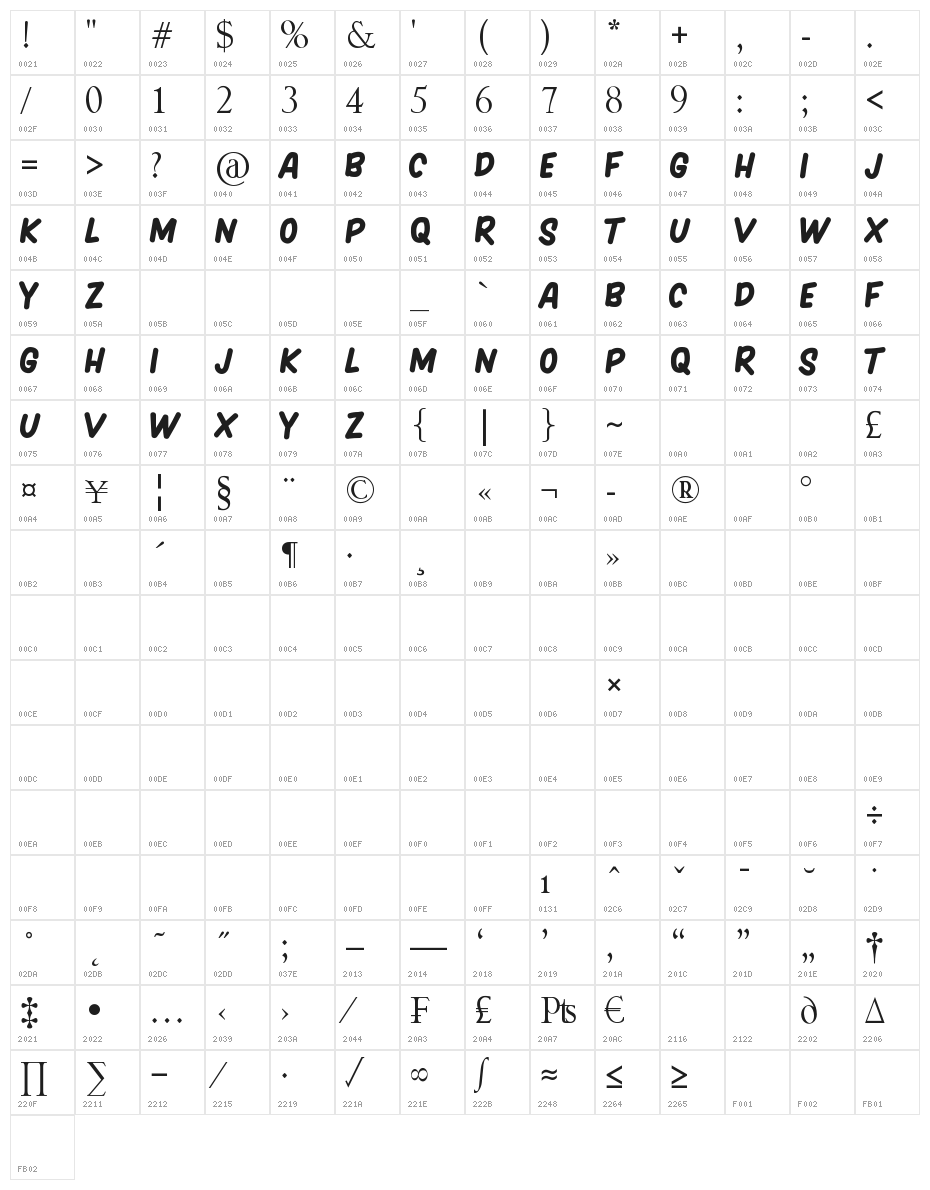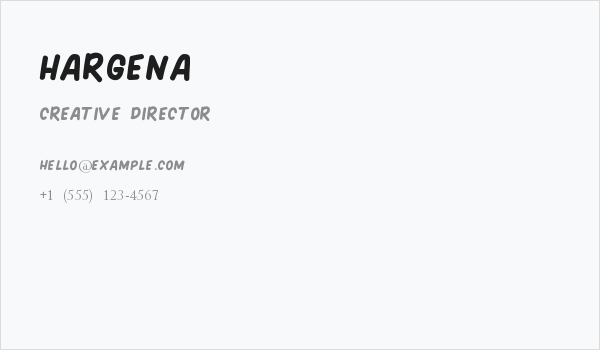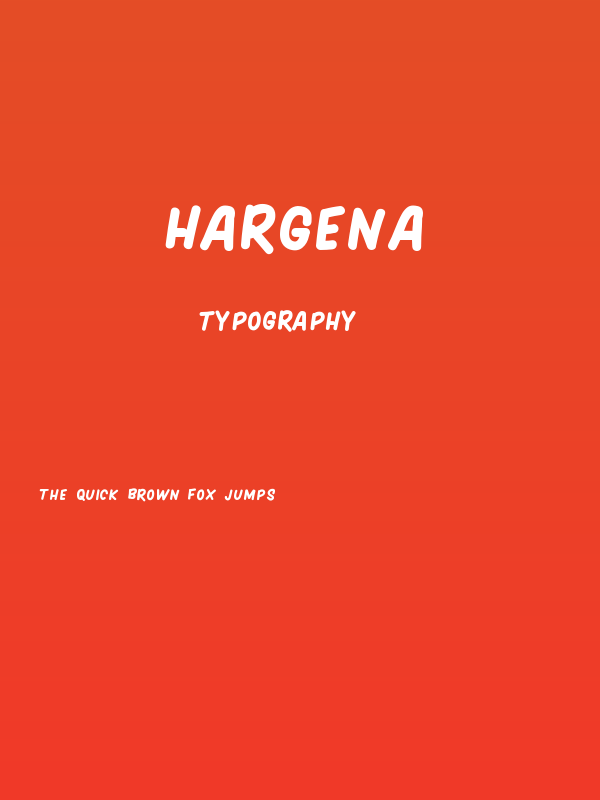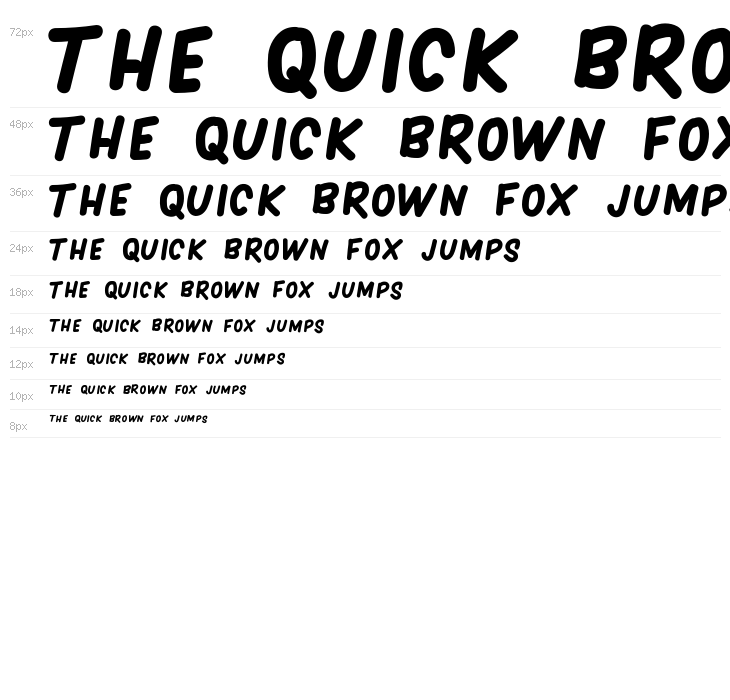
HARGENA Font
HARGENA Description
This font features a playful and energetic style with a handwritten appearance. The letters are bold and slightly slanted, giving a sense of movement and dynamism. The uppercase and lowercase letters maintain a consistent flow, with rounded edges and smooth curves that enhance its casual and friendly look. The numerals are clear and easy to read, complementing the overall aesthetic. Special characters are well-integrated, maintaining the same lively and informal feel. This font is versatile, suitable for projects that require a personal touch or an informal tone.
| Proposed Projects | Ideal for greeting cards, invitations, children's books, and casual branding projects. |